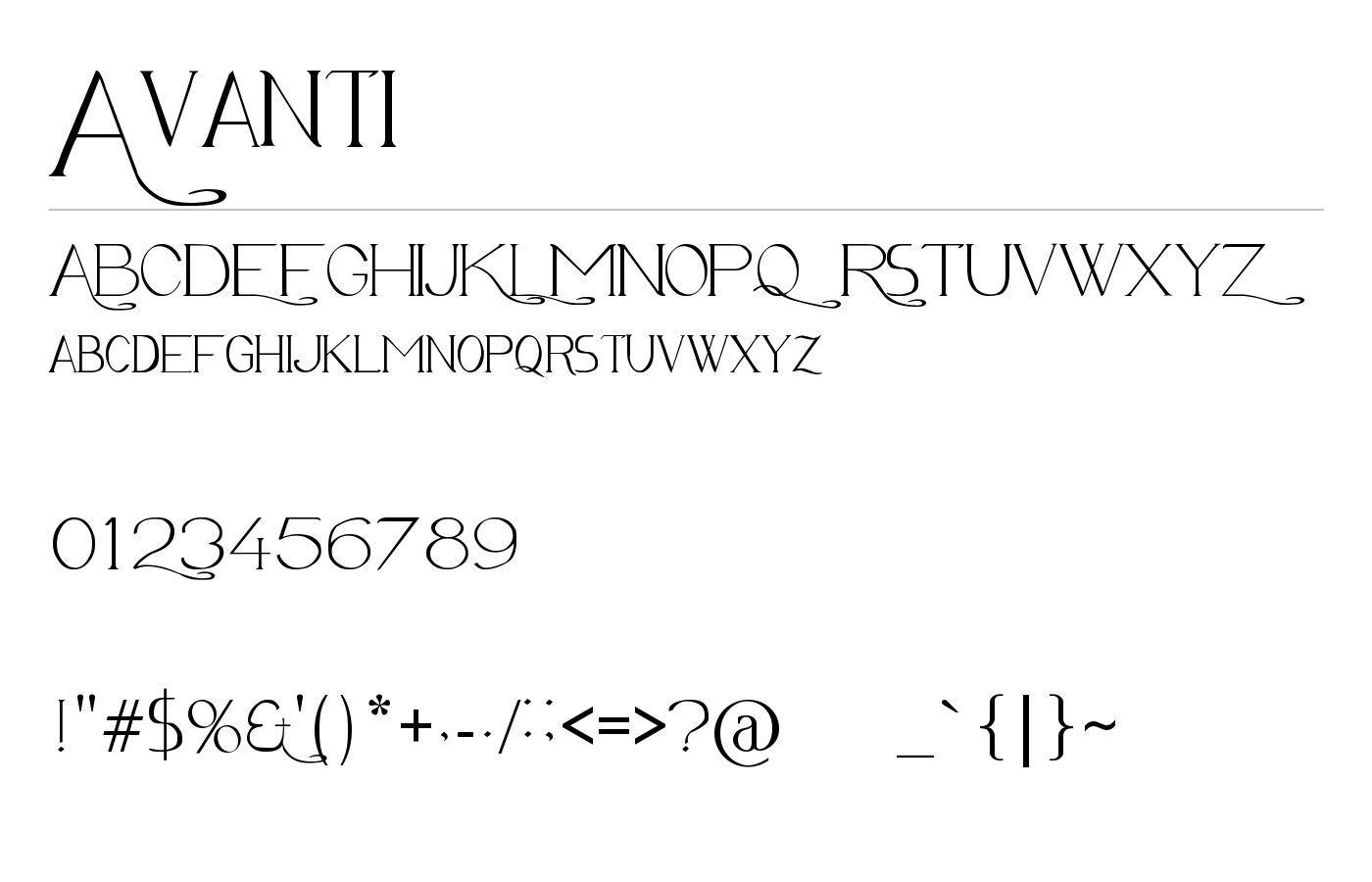
Avanti is an elegant, thin serif font with a refined and artistic flair, characterized by its high contrast strokes and delicate, sweeping flourishes on select letters. Its tall, narrow letterforms and graceful curves give it a sophisticated, vintage-inspired personality, making it perfect for luxury branding, fashion editorials, and stylish headlines where a touch of classic elegance is desired. This font’s distinctive decorative details and light weight create an airy yet formal look that works best in display uses rather than body text.
Avanti Font
About Avanti Font